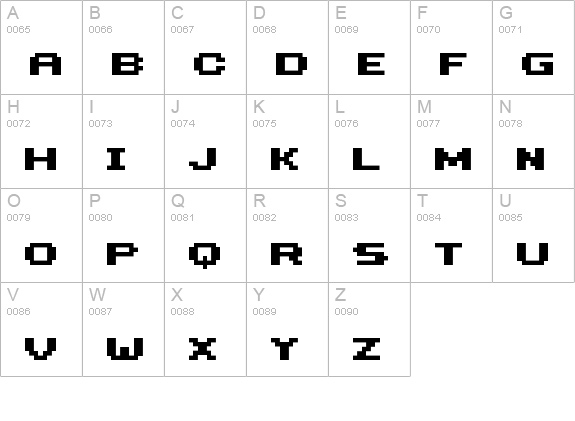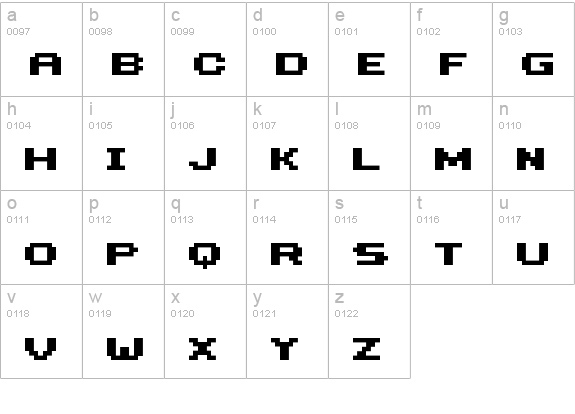
HILOGINBOLD font is a modern and stylish typeface that exudes confidence and sophistication. With its bold and eye-catching design, HILOGINBOLD is perfect for making a statement in your designs. This font is perfect for headlines, logos, posters, and any design projects that require a touch of boldness. The best part is that HILOGINBOLD is completely free to download at FontsMarket.com. You can easily add this stunning font to your collection without any cost. Don't miss out on the opportunity to enhance your designs with this versatile and striking typeface. Download HILOGINBOLD now and take your projects to the next level!